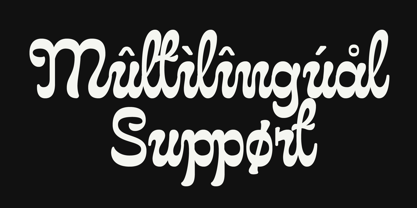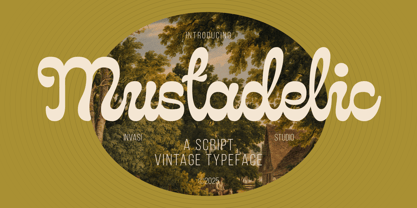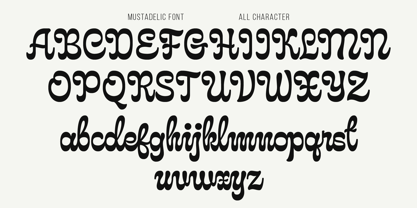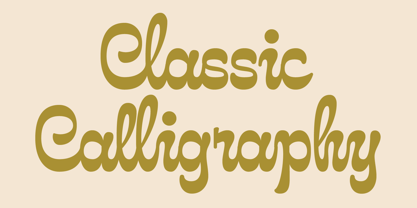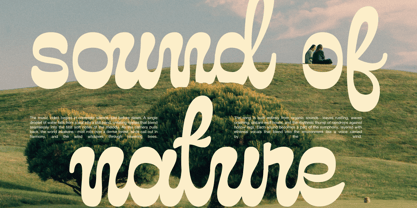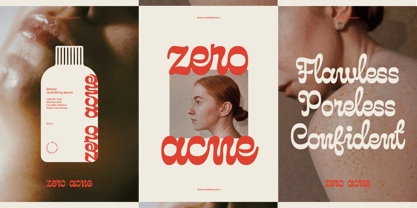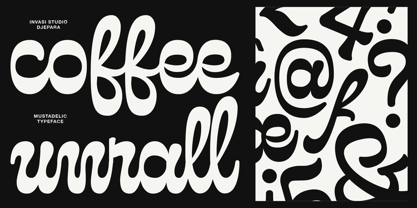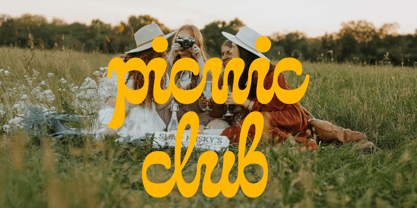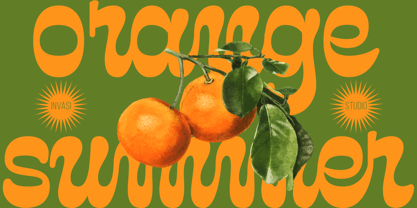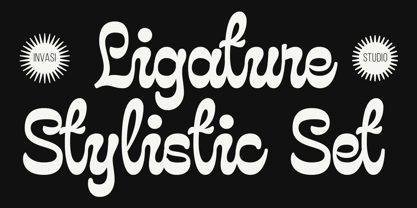
Mustadelic
by Invasi Studio
The Mustadelic Font Family was designed by Gha Arizal and published by Invasi Studio. Mustadelic contains 1 styles.
Let the rhythm of the past flow into your designs with Mustadelic, a groovy script font inspired by the psychedelic era. Its fluid curves and bold strokes channel the carefree spirit of the ’60s and ’70s, making every word feel dynamic and alive. Designed with smooth letter connections and stylish alternates, this typeface offers a unique retro aesthetic while staying versatile for modern applications. Whether you’re crafting eye-catching branding, nostalgic packaging, or expressive typography for apparel, Mustadelic delivers a charismatic presence. With extensive multilingual support and well-balanced ligatures, this font is built to bring energy, personality, and a touch of nostalgia to any creative project.